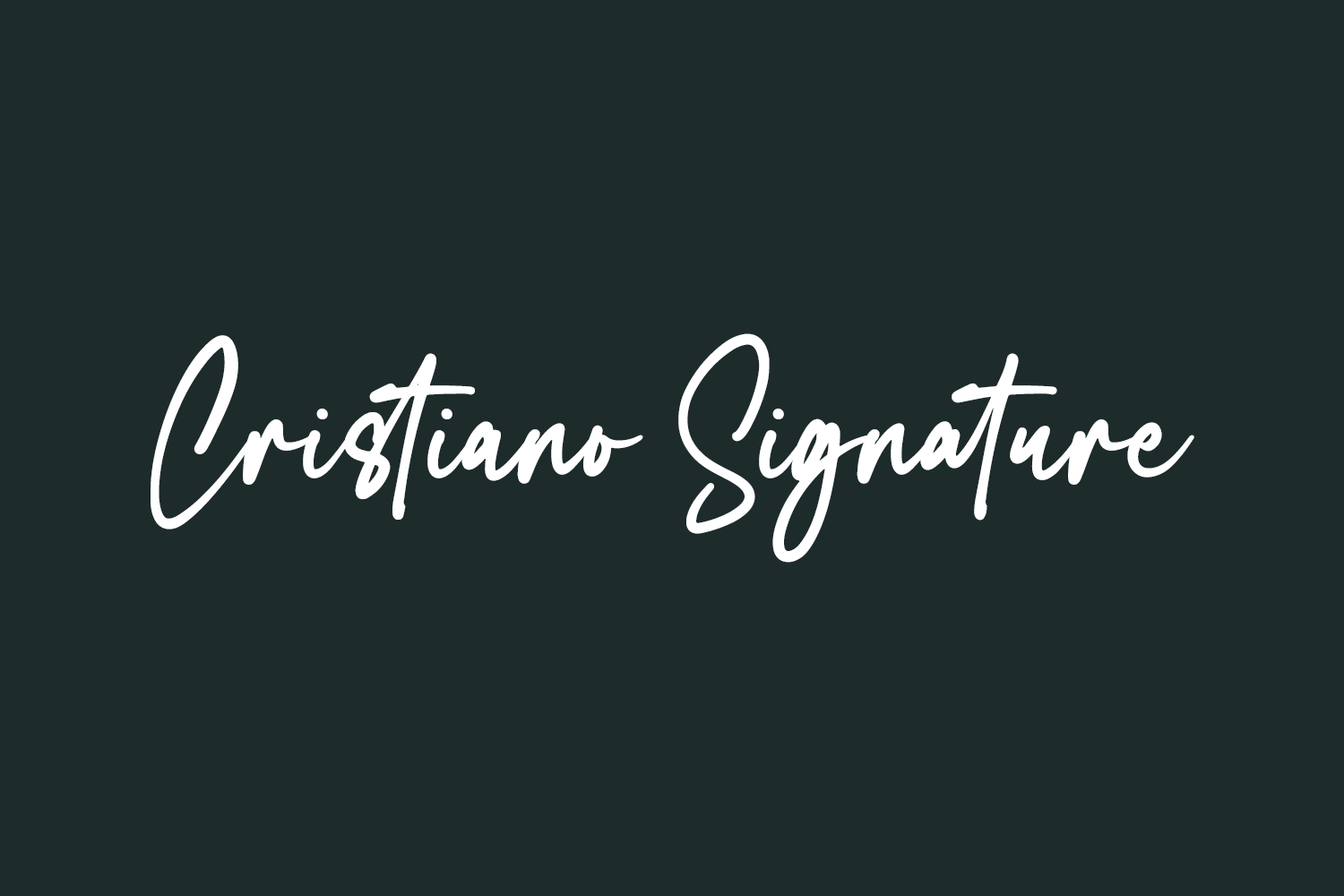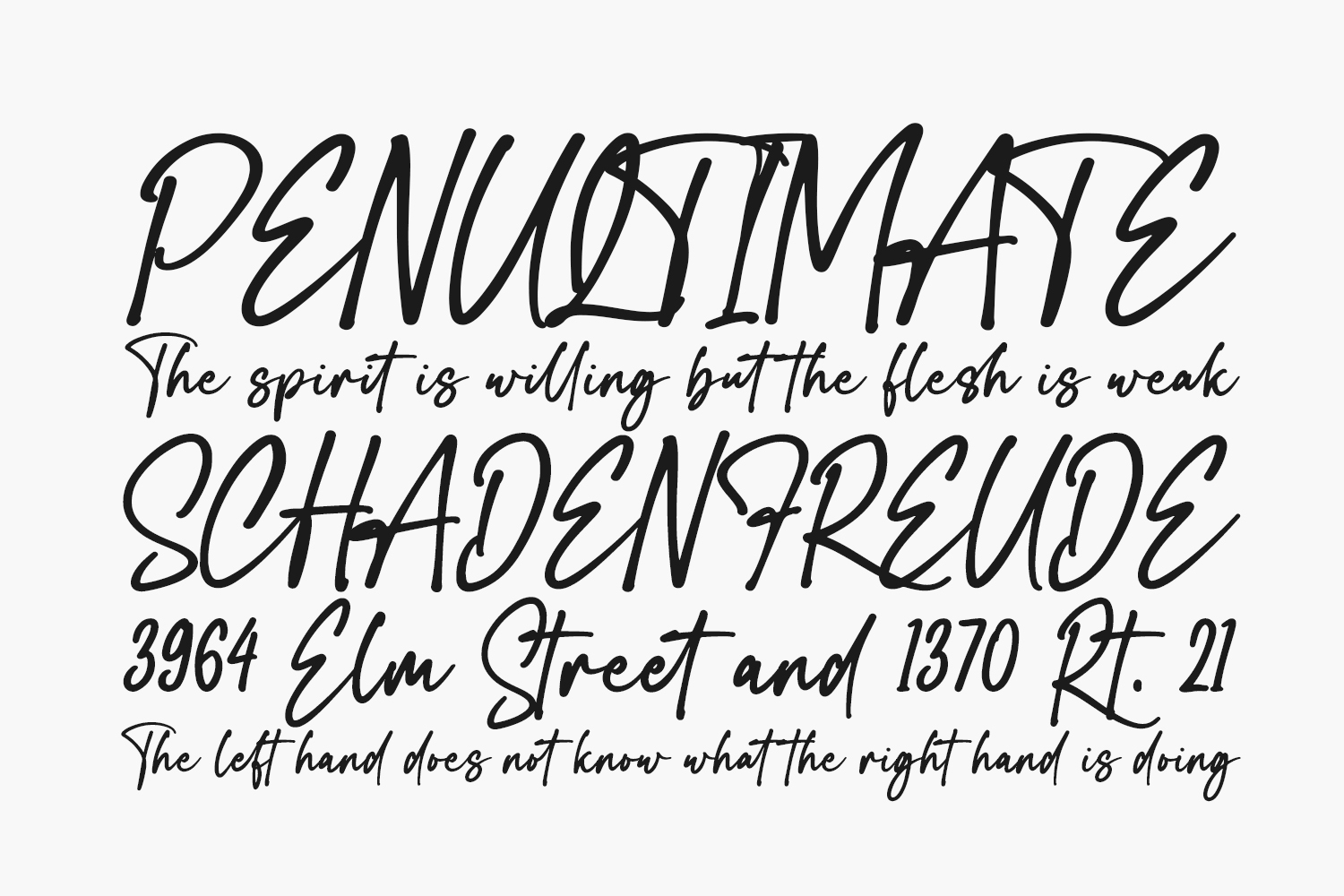
Meet Cristiano Signature Free Font, an exquisite script font that exudes a dazzling charm. Meticulously crafted with intricate details, this font is a valuable addition to your collection. Versatile and refined, Cristiano Signature has the potential to elevate any creative project, making it a fantastic asset for your font library. Cristiano Signature Free Font is free for personal use only. Please purchase the full version for commercial use.